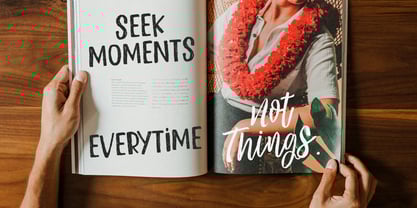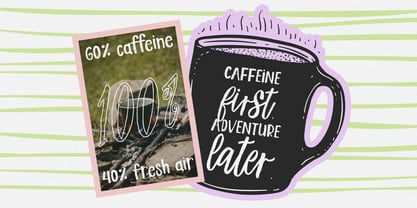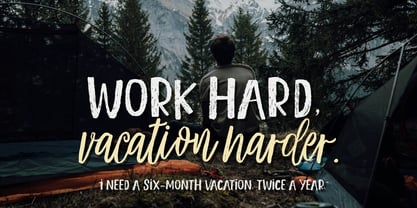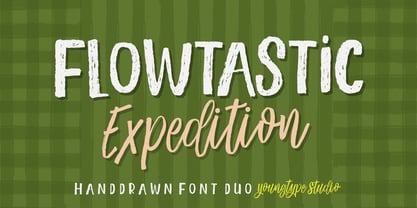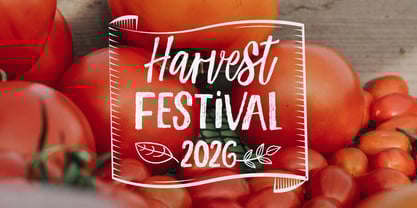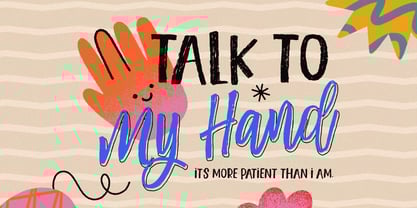
Flowtastic Expedition
by Youngtype
The Flowtastic Expedition Font Family was designed by Naufal Paramata and published by Youngtype. Flowtastic Expedition contains 2 styles and family package options.
Flowtastic Expedition is a playful hand-drawn font duo that combines bold textured lettering with a smooth and natural script. This unique pairing brings a cheerful and adventurous vibe, perfect for creative projects such as posters, branding, packaging, invitations, and social media designs. Its handcrafted style adds warmth and authenticity, making every design feel personal and full of character. Contains full set : Uppercase Lowercase Ligatures Punctuation Number Multilingual support. Thank you
Designers: Naufal Paramata
Publisher: Youngtype
Foundry: Youngtype
Design Owner: Youngtype